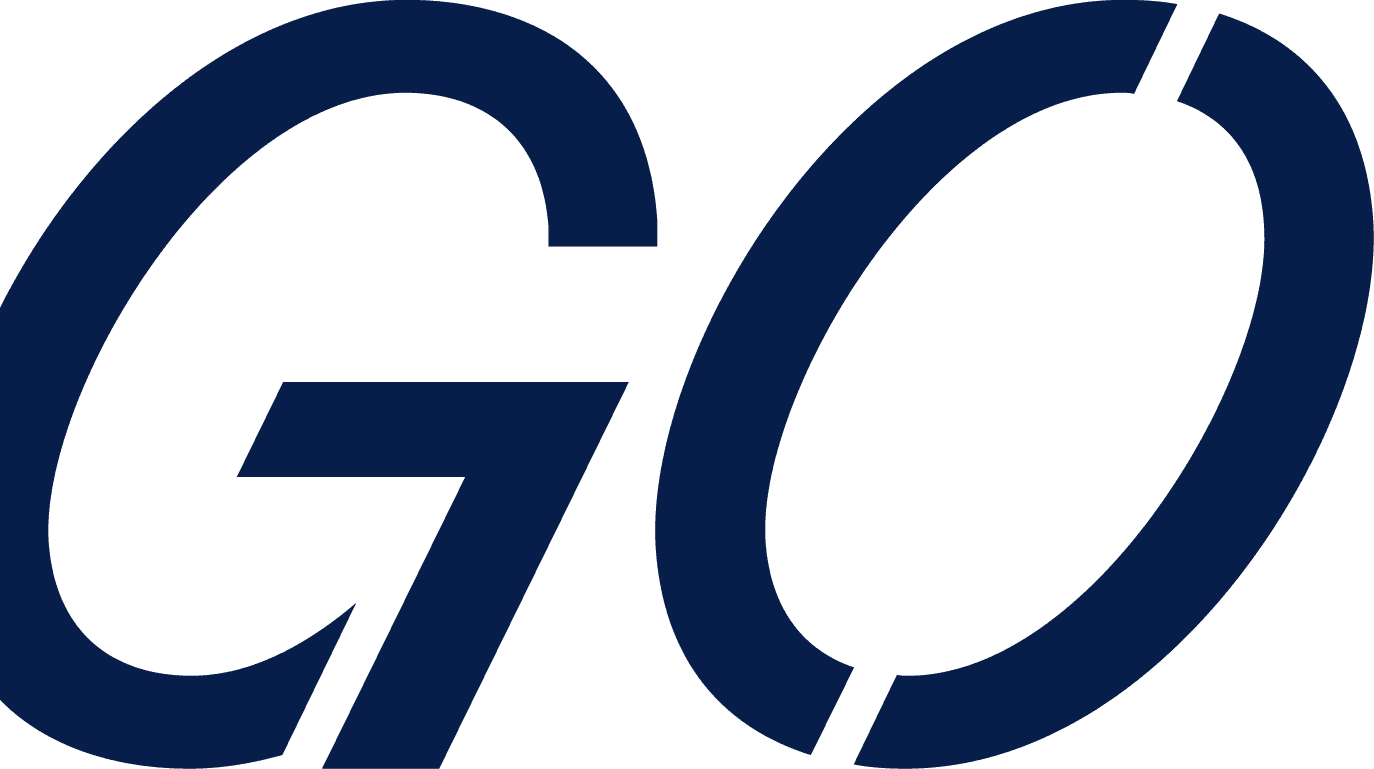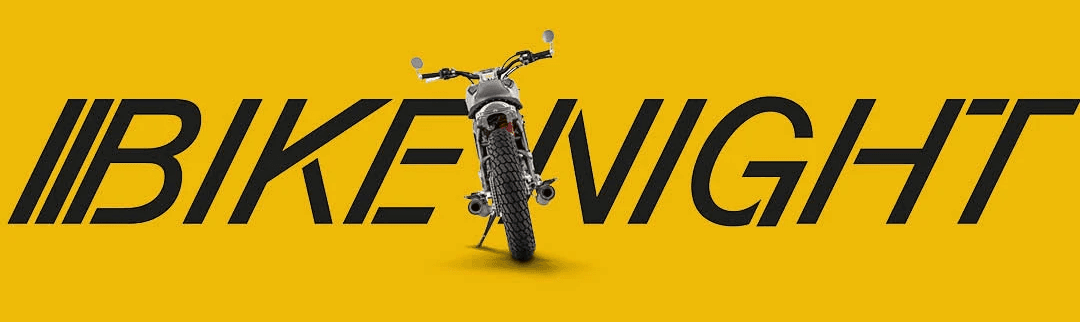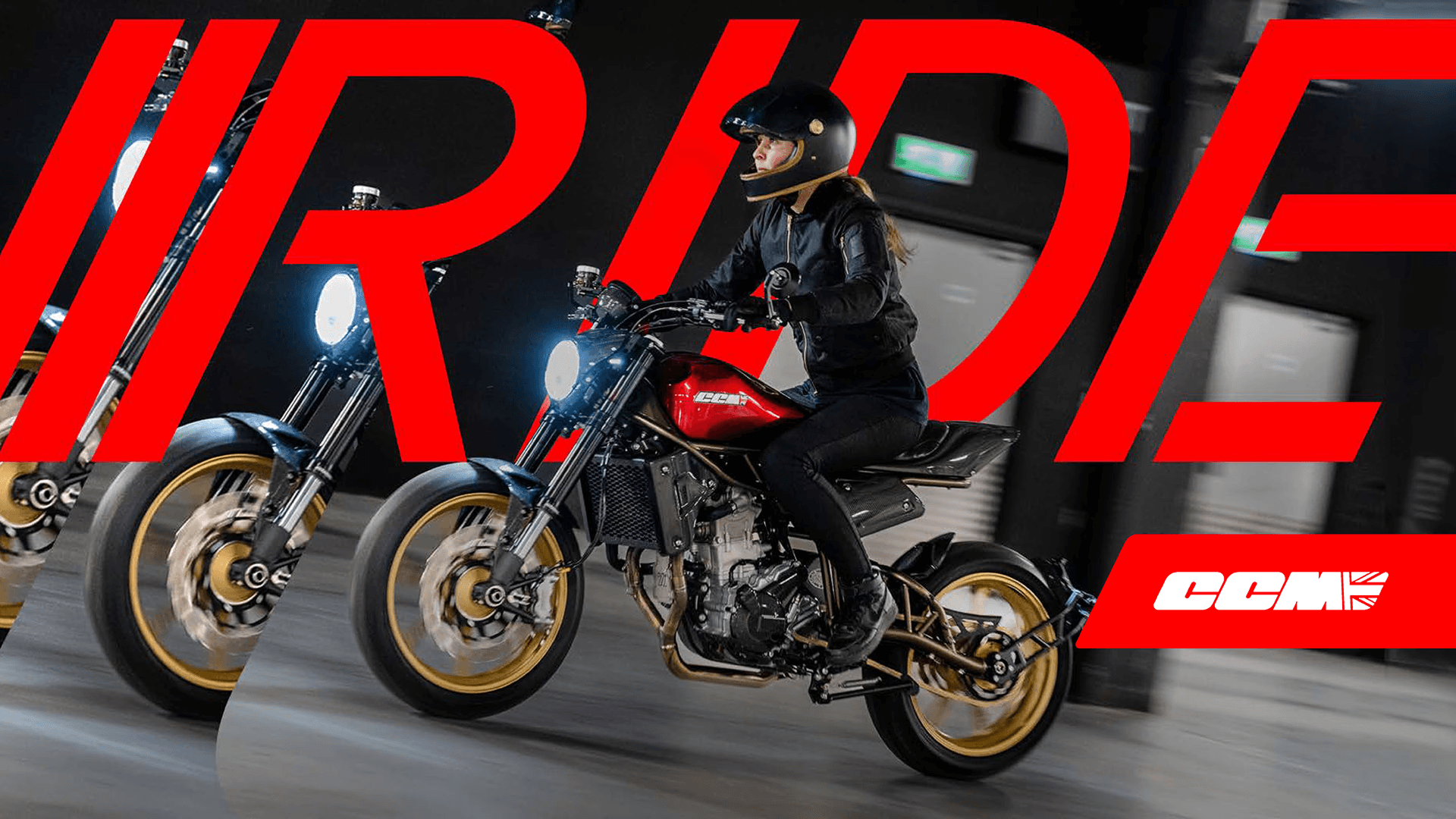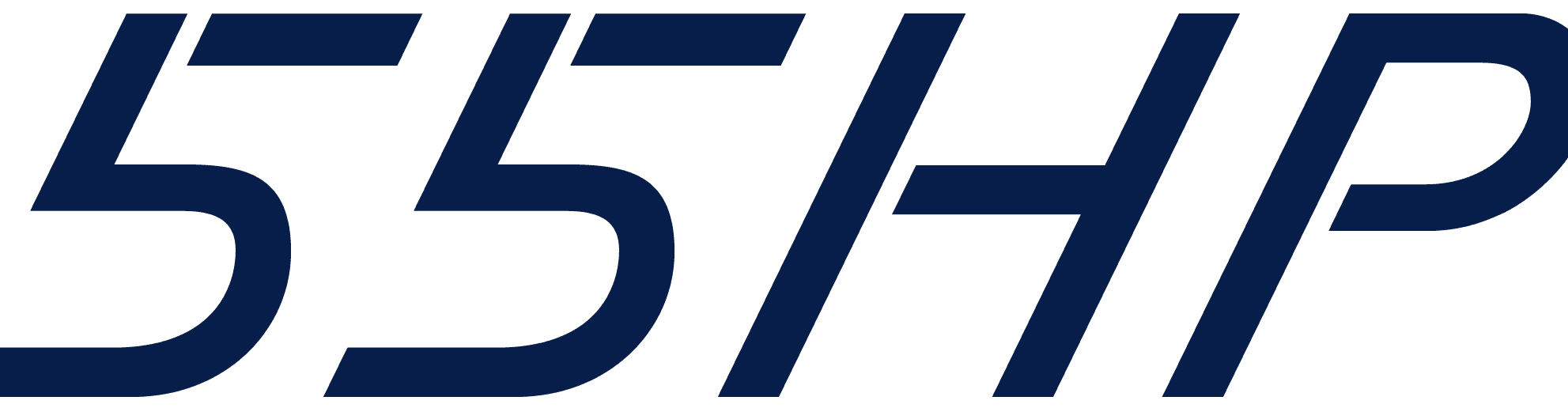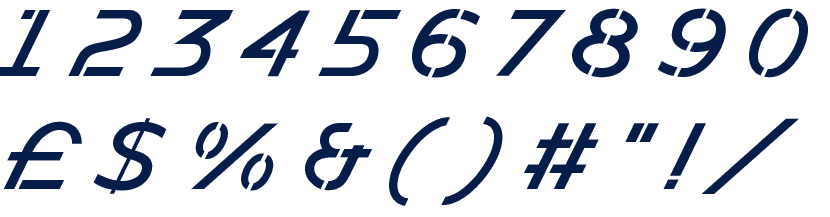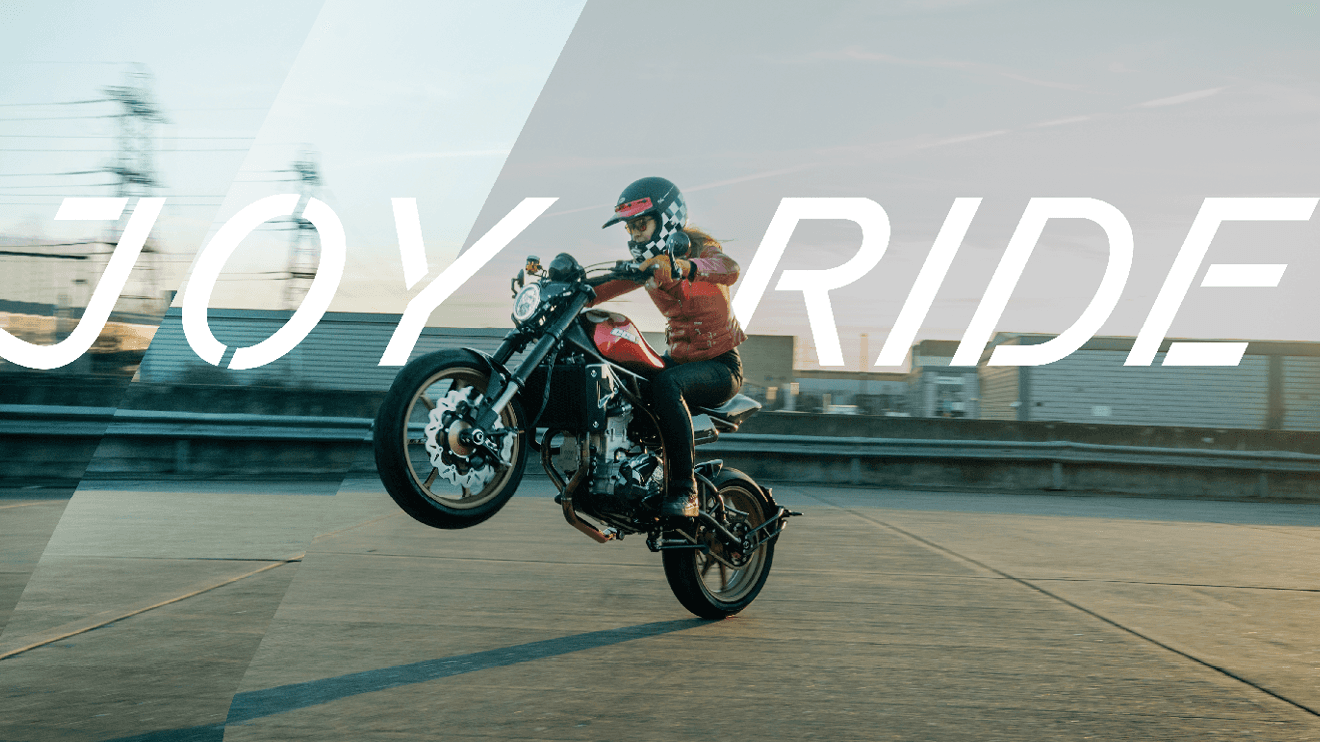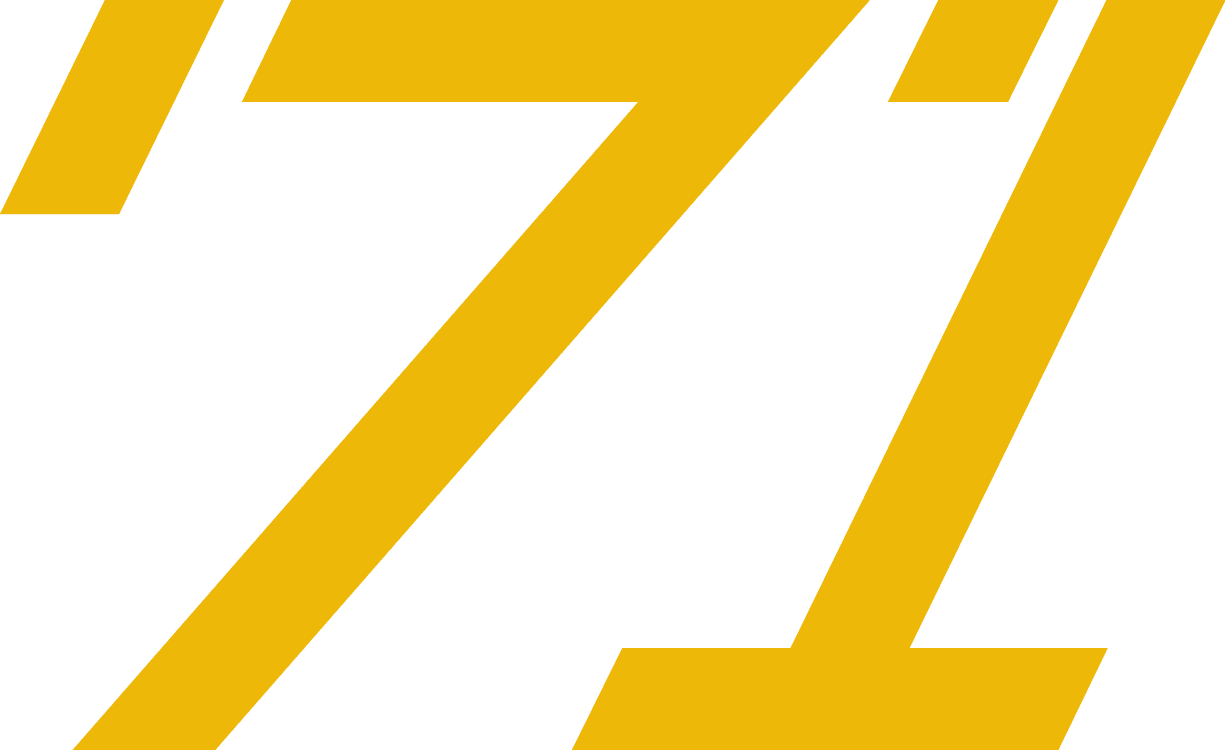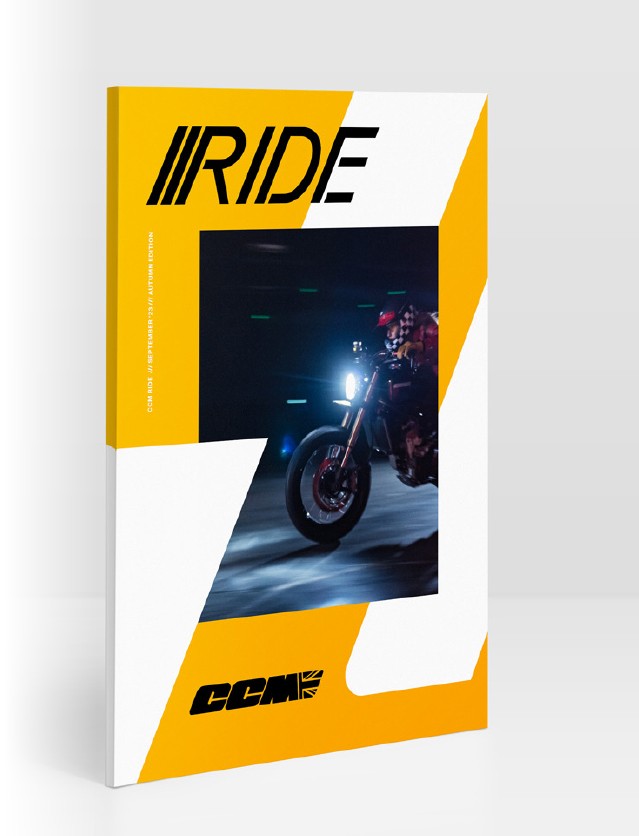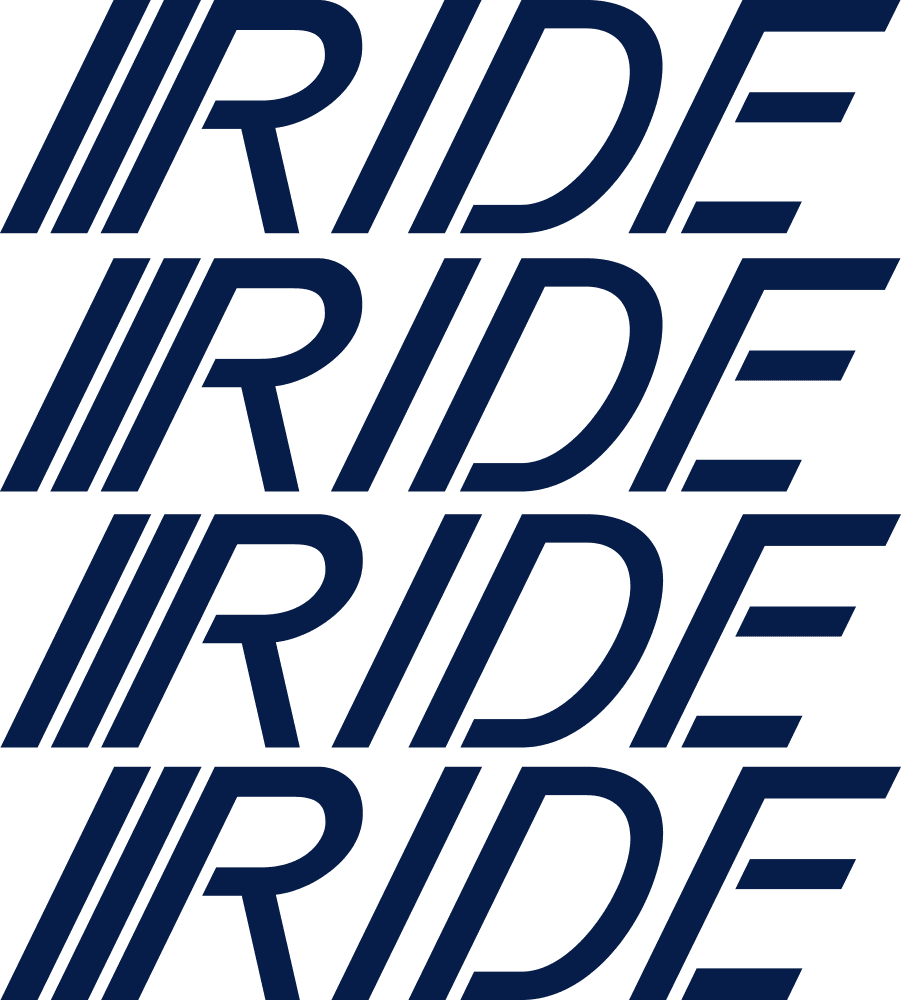
A new typeface for Bolton based bike builders
CCM Typeface
Custom bike, custom type
CCM has a history of unique bikes and iconic models. A range of motorcycles that offers a truly exclusive and immersive experience for CCM riders that pushes the boundaries of convention. With the logo retaining it’s heritage and the colours inspired by the racing legacy the display typography was all about uniting those elements with a look to the future. Striped back like the bikes the stencil face carries the angles from the logo and literally leans into the racing line.
“ENGINEERING FUN SINCE '71”